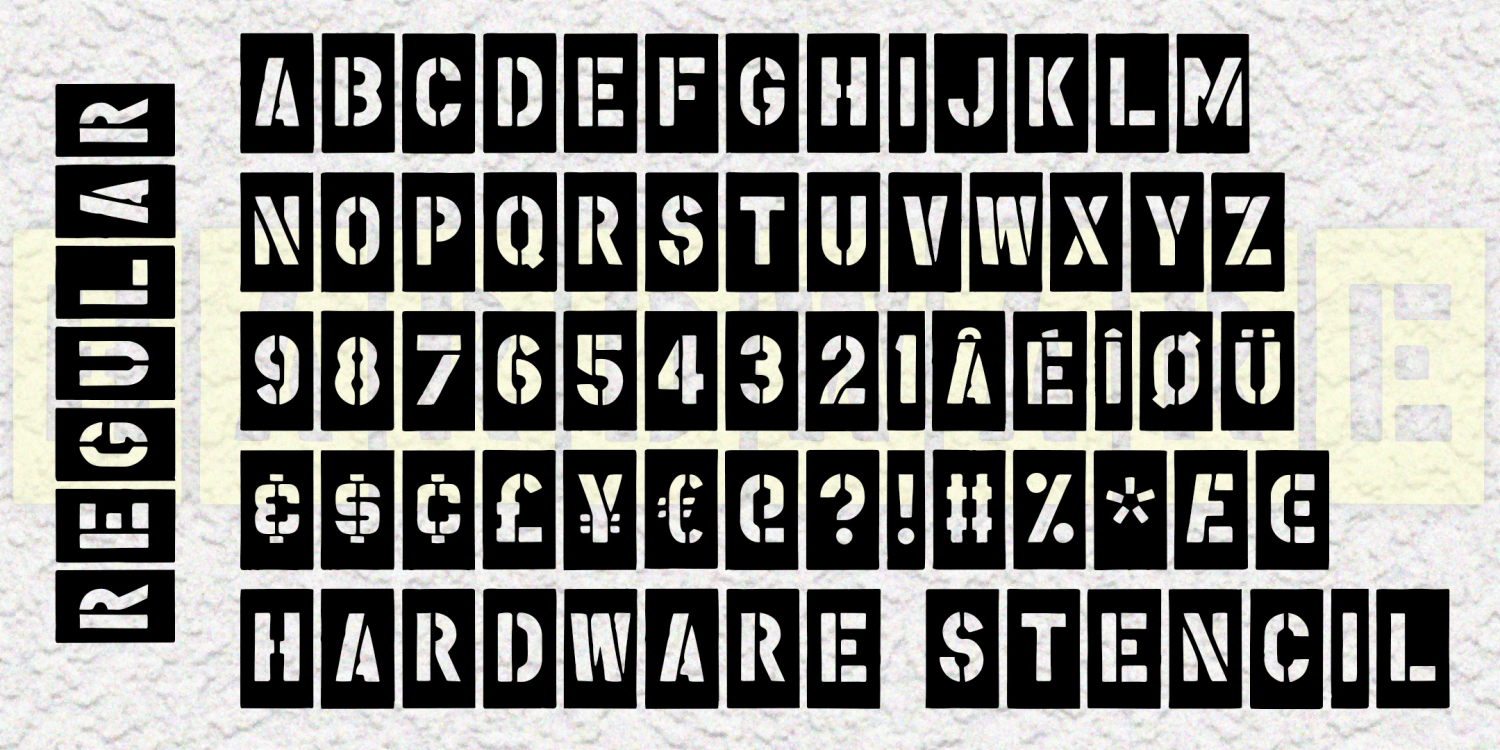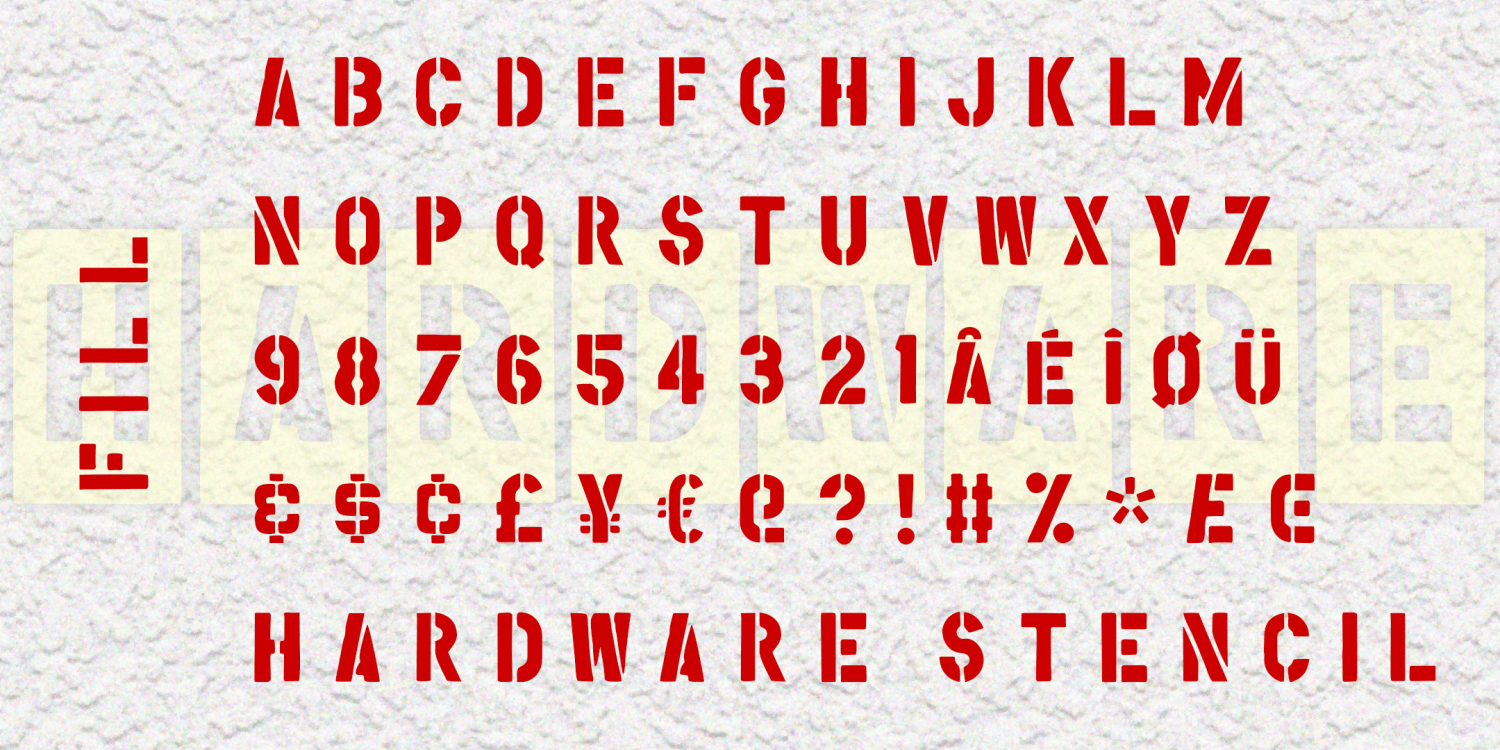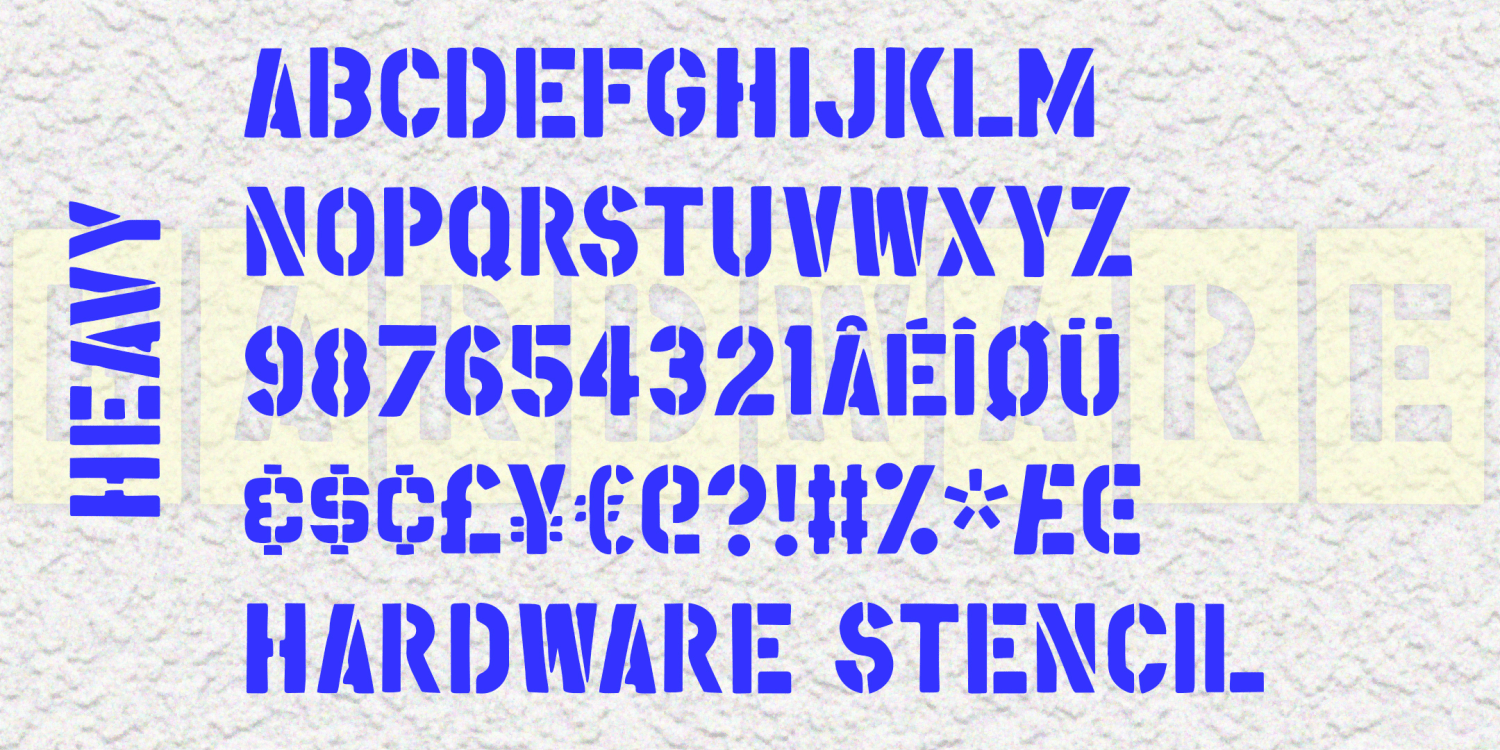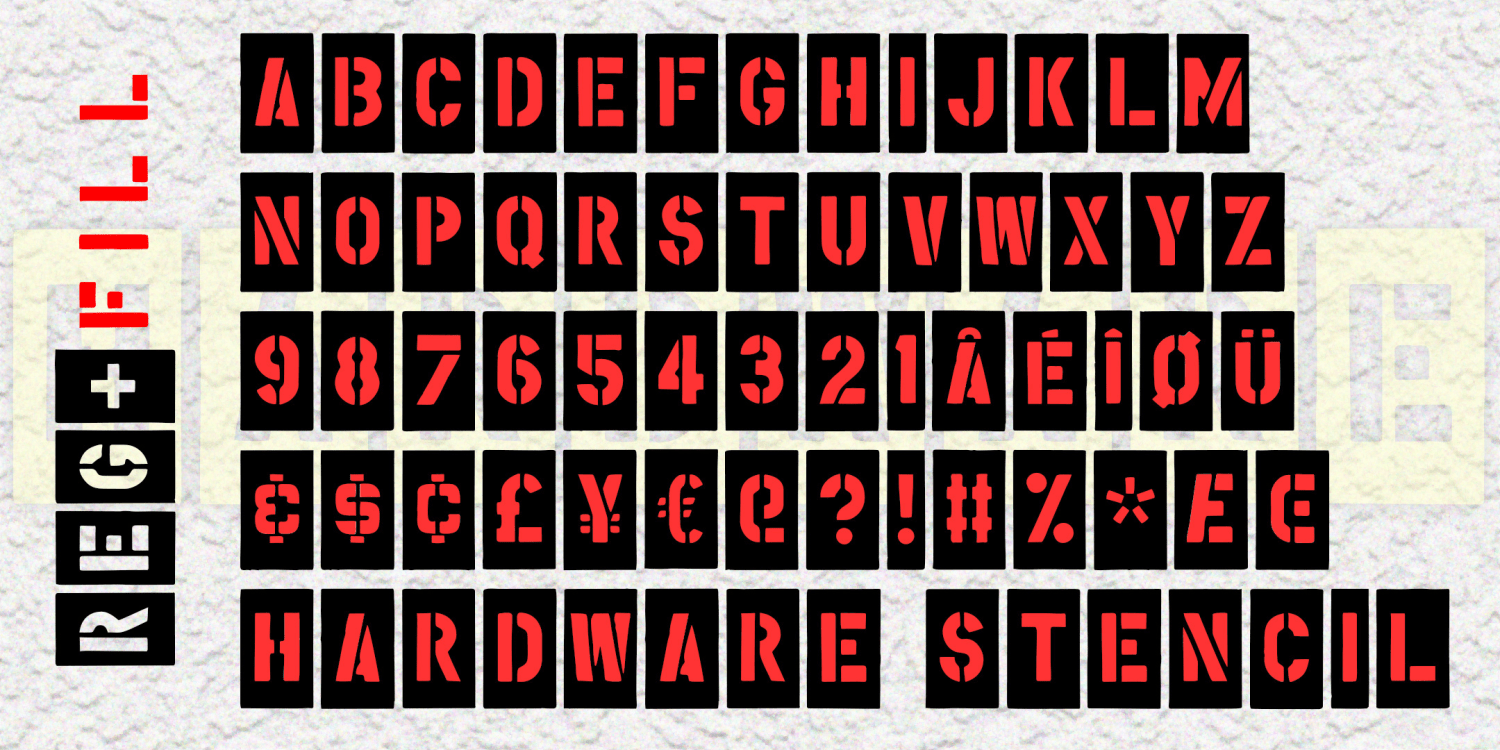
Hardware Stencil
HARDWARE STENCIL is a set of 3 fonts that capture the look of real stencils like you get at the hardware store. The style is stark functionality. The Heavy font gives you just the letters: big, bold and properly spaced and kerned. The Regular font places each letter within its oaktag rectangle for a smart, mostly monospaced look. The Fill font is meant to be used with the Regular font in a different color on a different layer. And of course I’ve expanded the limited character set of the original readymade stencils.